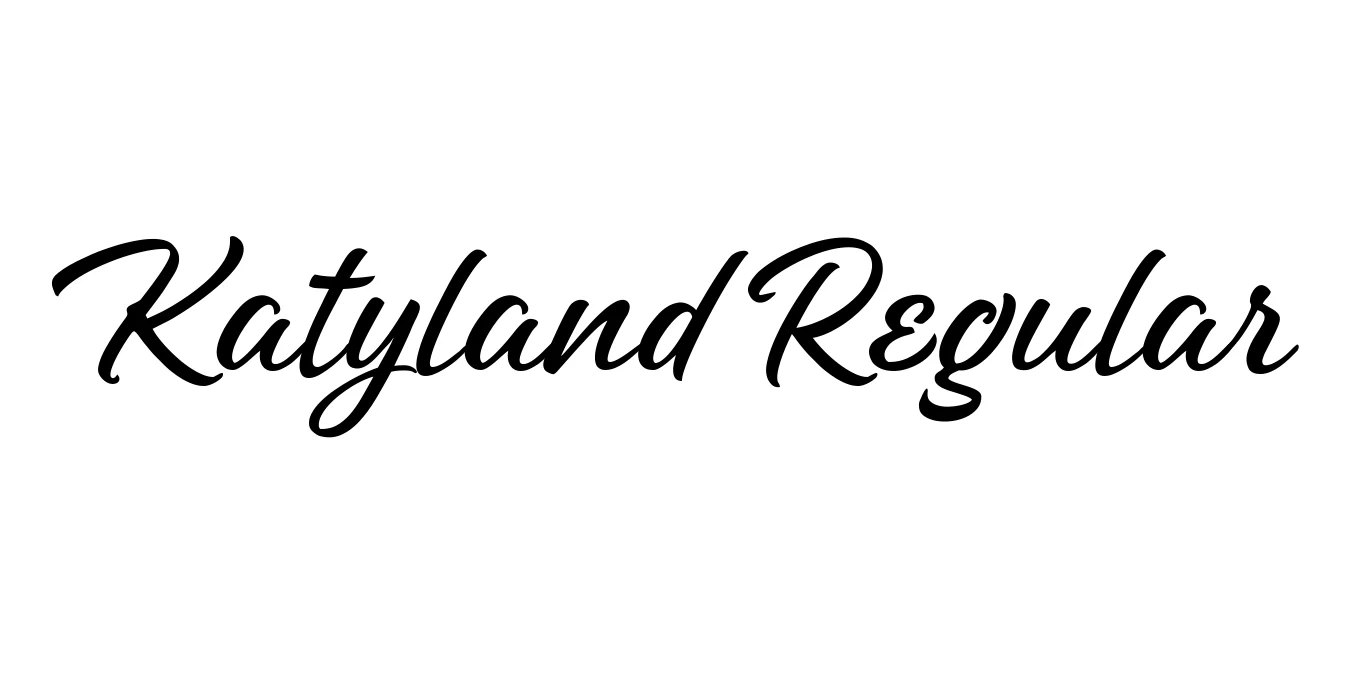
Katyland Regular
Designed by Sronstudio
Katyland Regular is a stunning and elegant handwritten script font crafted by Sronstudio. It features flowing, rhythmic lines and a sophisticated aesthetic that captures the essence of modern calligraphy. This font is meticulously designed to add a personal, human touch to both digital and print projects, making it a favorite for designers seeking a balance between professionalism and organic style.
With its smooth curves and natural strokes, Katyland Regular excels in creative projects that require high legibility without sacrificing artistic flair. Whether utilized for large-scale display headers or subtle design accents, the font provides a cohesive look that is both timeless and contemporary. It is particularly effective for high-end branding, feminine-themed designs, and boutique marketing materials.
Katyland Regular Best Uses
Ideal for elegant invitations, RSVP cards, and table settings.
Perfect for creating sophisticated logos and high-end brand identities.
Excellent for aesthetic Instagram quotes and lifestyle graphics.
Adds a luxury feel to cosmetics, fashion, and artisanal goods.